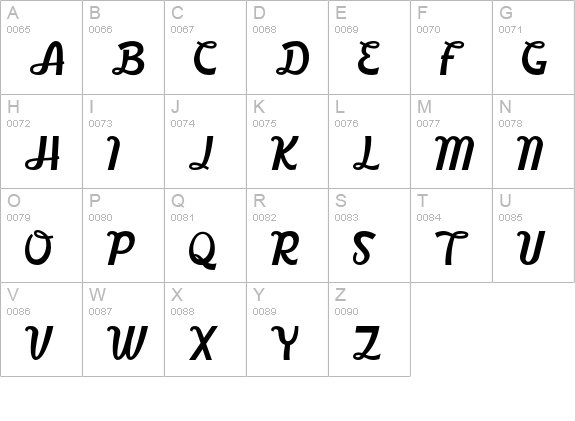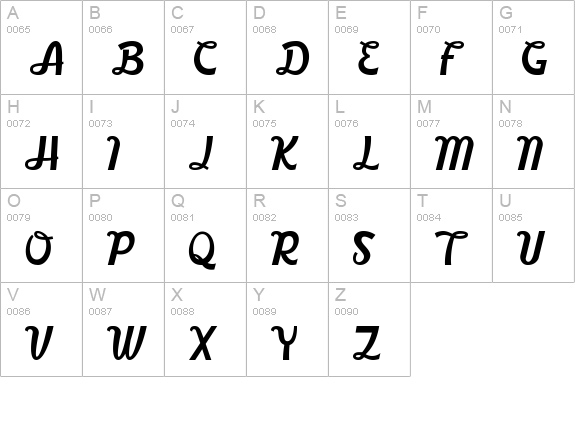
Boardley font is a modern and stylish typeface that exudes sophistication and creativity. With its unique blend of sharp angles and smooth curves, Boardley font is perfect for adding a touch of elegance to any design project. Whether you're designing a logo, invitation, or poster, this versatile font is sure to make a statement.